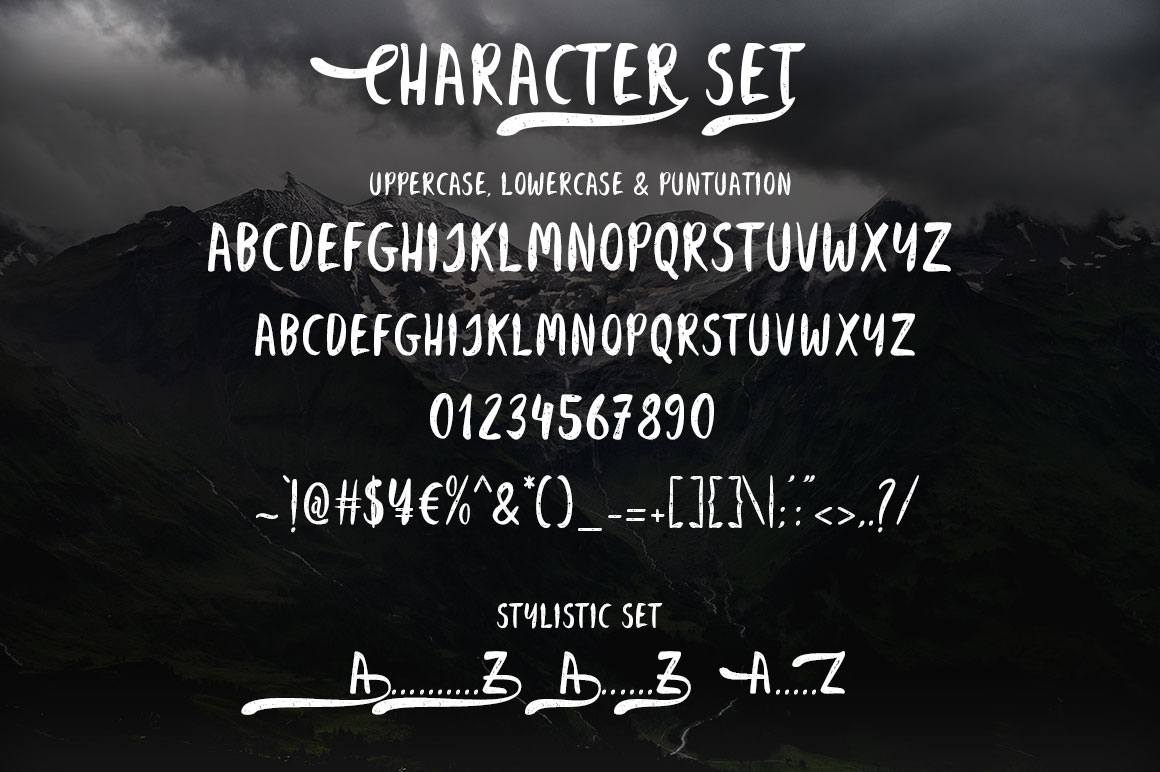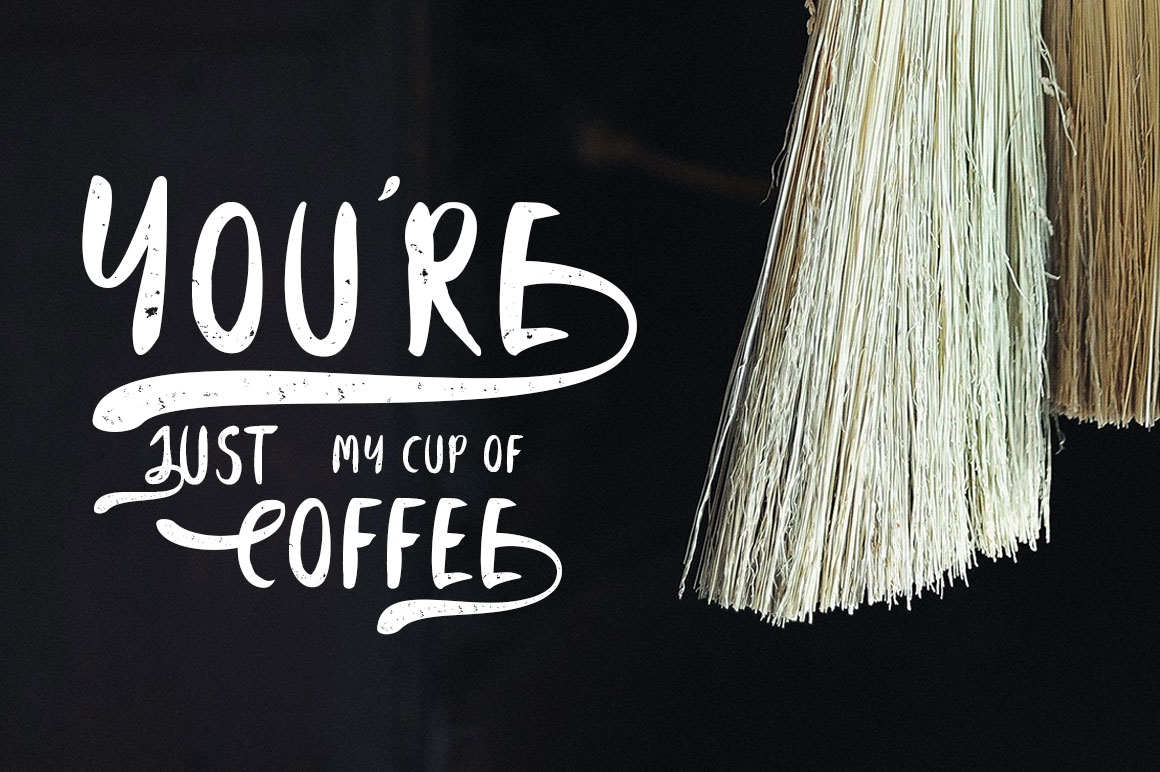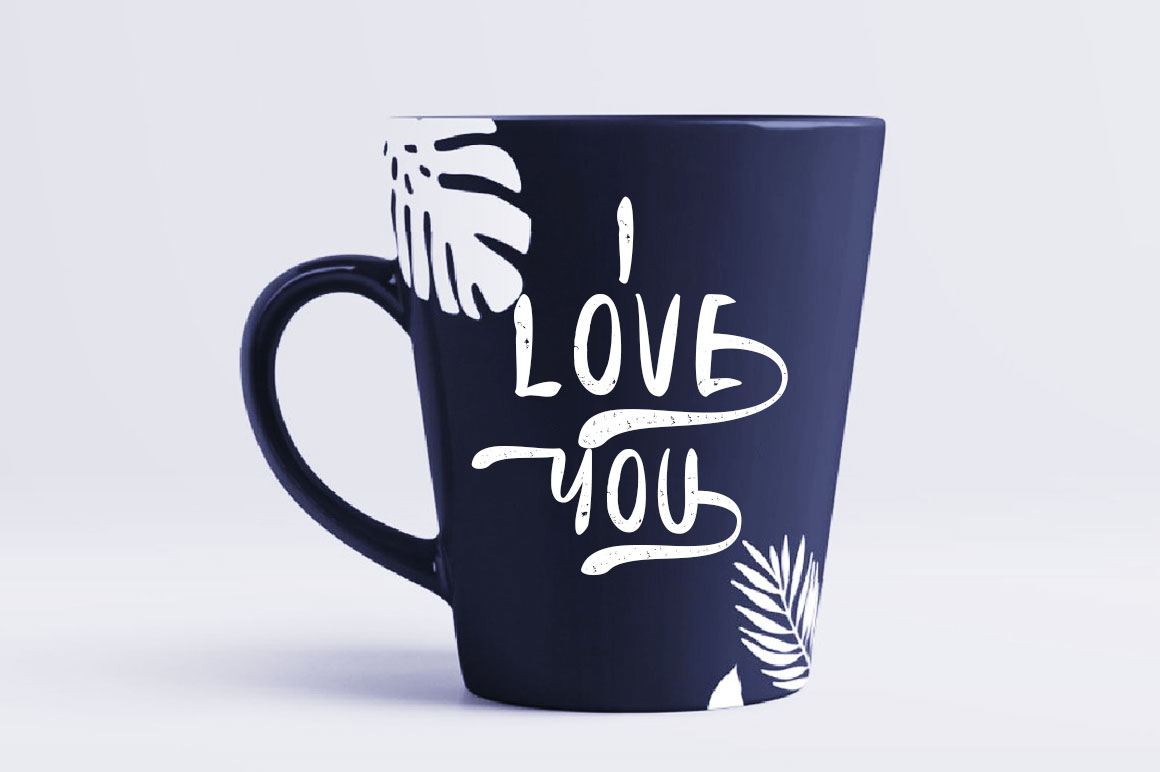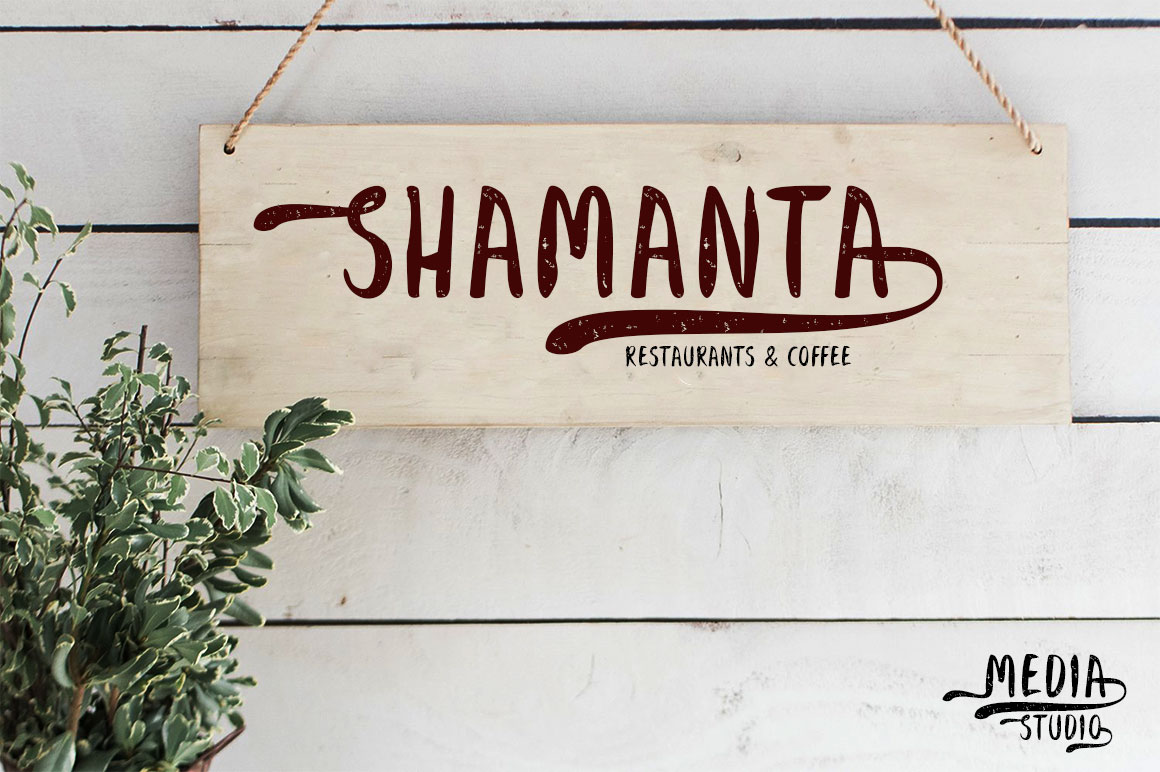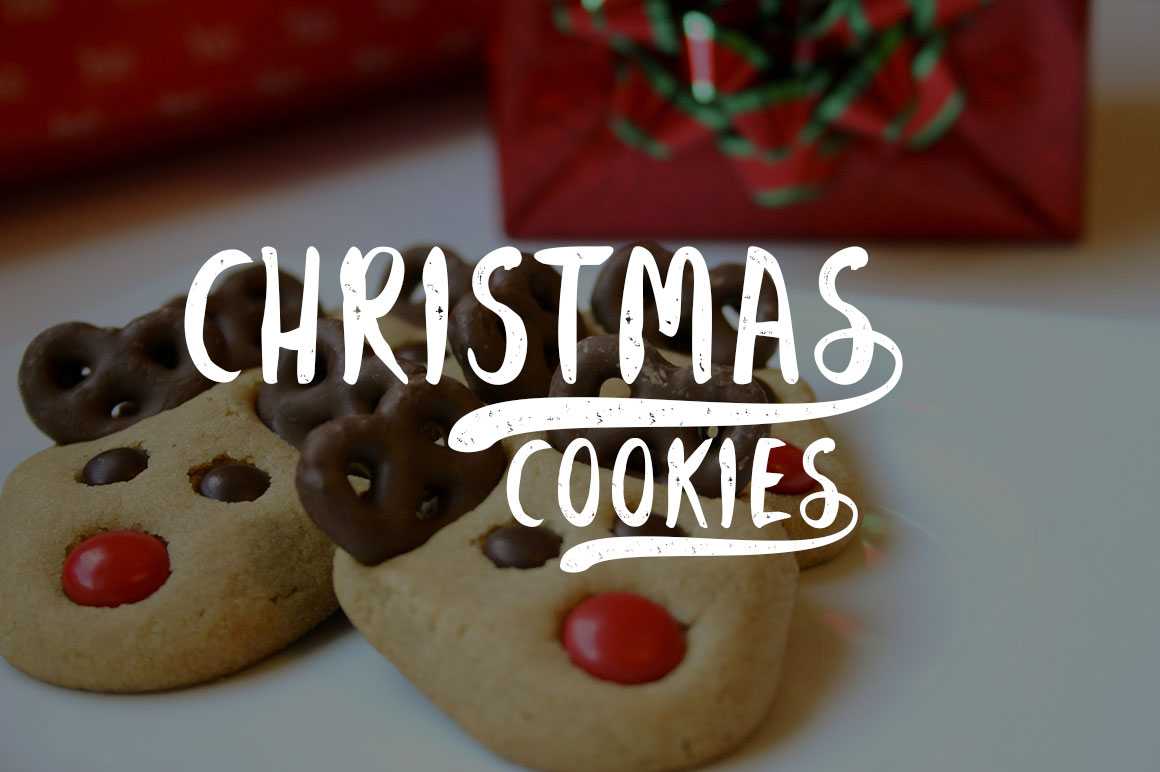
Introduction to Media Studio Font
Media Studio is a handwritten brush script made with love.
Simple and elegant, itโs perfect to put personal nuances and care into whatever project youโre working on .
Key Features of Media Studio Font